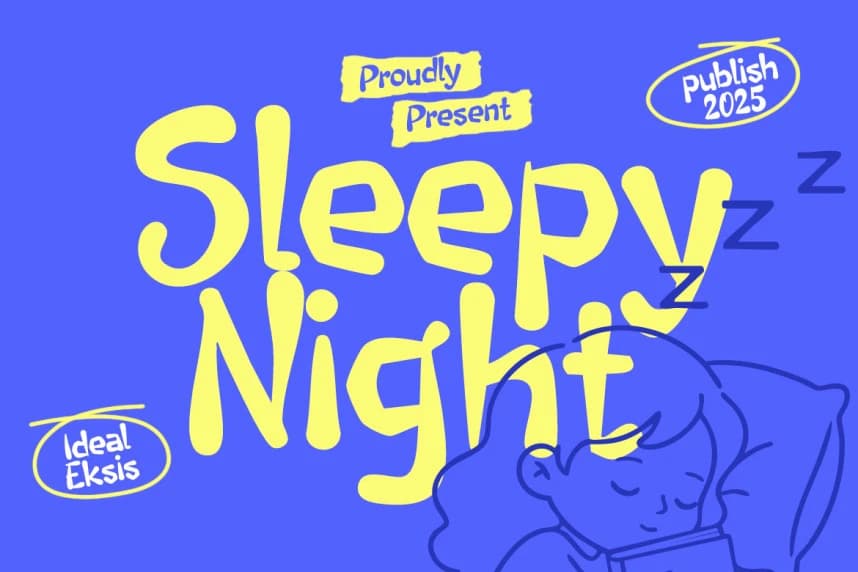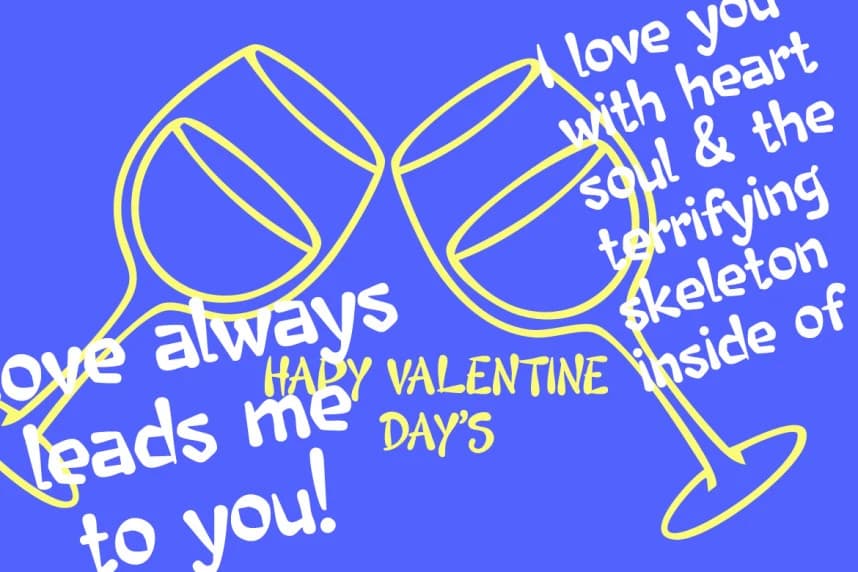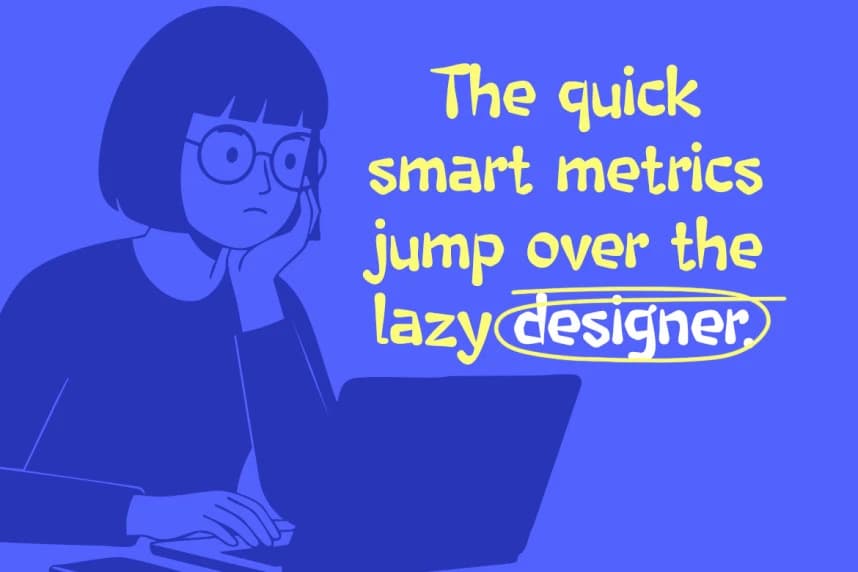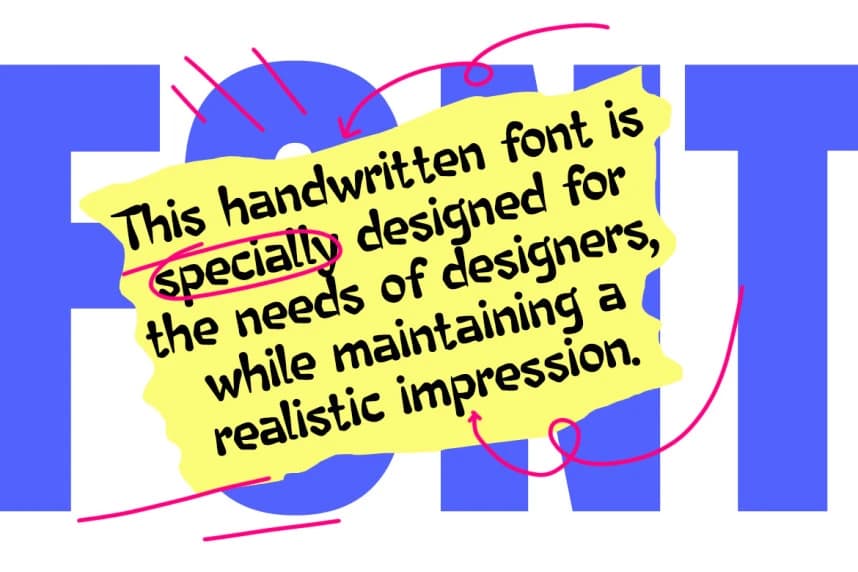
Sleepy Night Playful Font
Sleepy Night Playful Font is a charming and whimsical display font, characterized by its exceptionally rounded and soft letterforms. Each character features a thick, consistent stroke weight with no sharp edges, creating a friendly and approachable aesthetic.